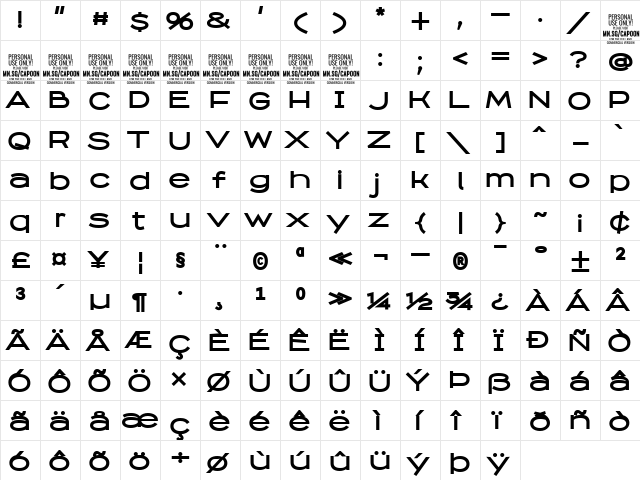
Capoon PERSONAL USE Bold
| Foundry | Mans Greback |
| Designer | Mans Greback |
Design Context for Capoon PERSONAL USE Typeface
Capoon PERSONAL USE is a composed and adaptable typeface that performs quietly and consistently across a wide range of design contexts. Its bold stroke weight gives it real presence on the page.